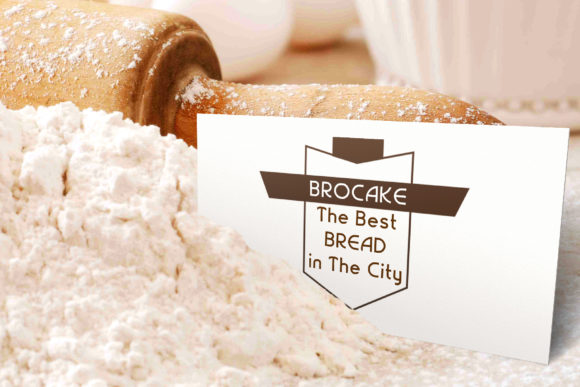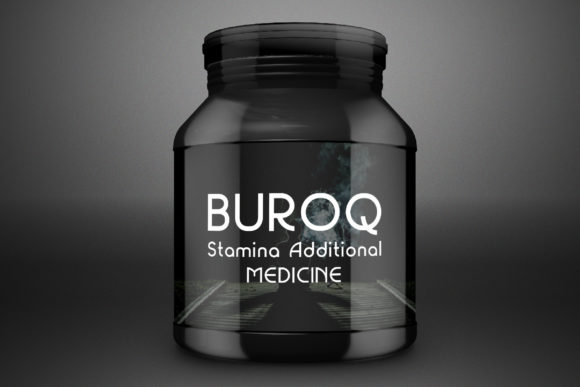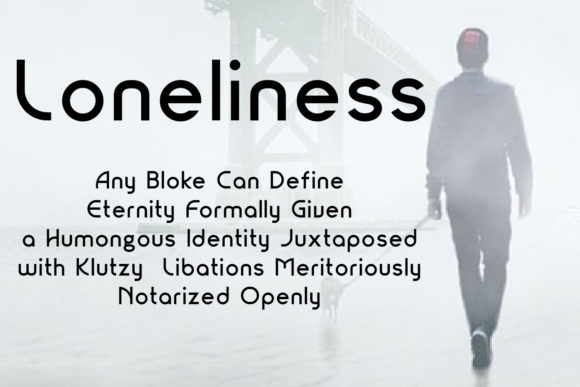
Introduction to Amblas Font
Amblas is a stylish and smart sans serif font with an incredible feel.
Get inspired by its unique charm .
Amblas Font offers exceptional quality and versatility, making it a valuable addition to your design toolkit. Whether you’re creating for personal projects or commercial use, Amblas Font delivers professional results.